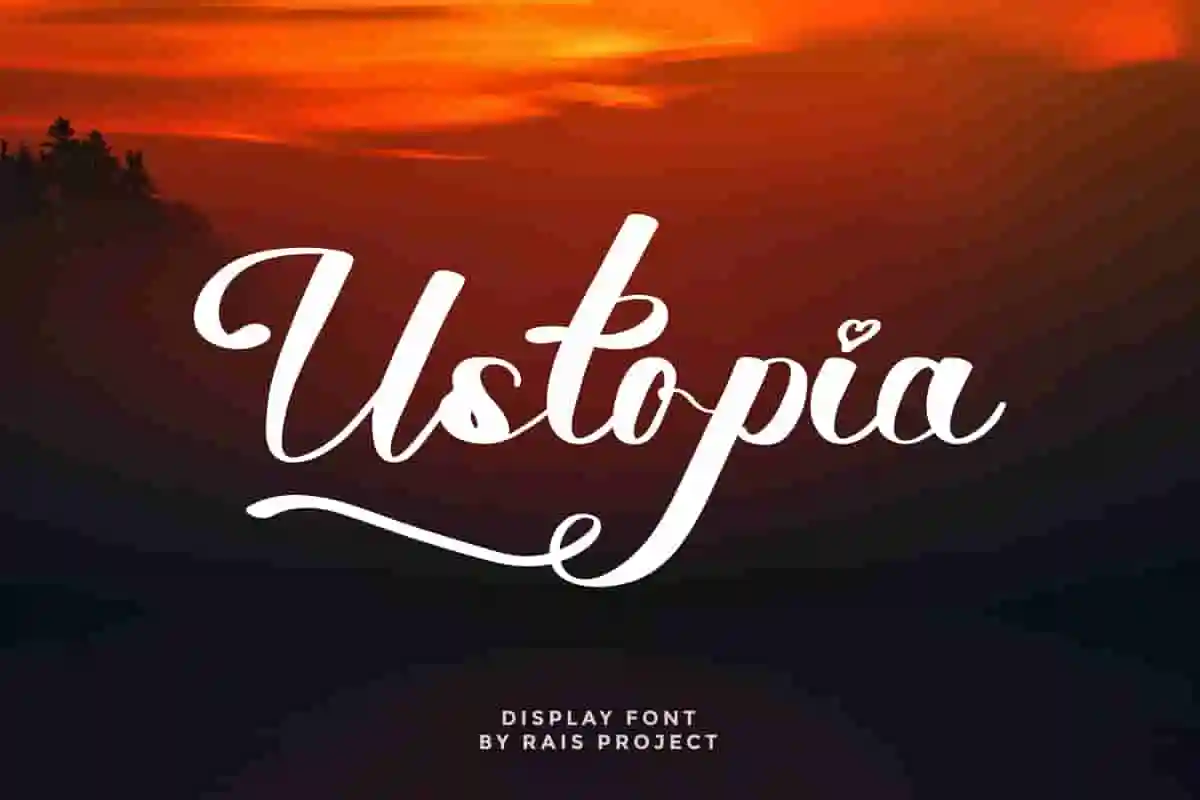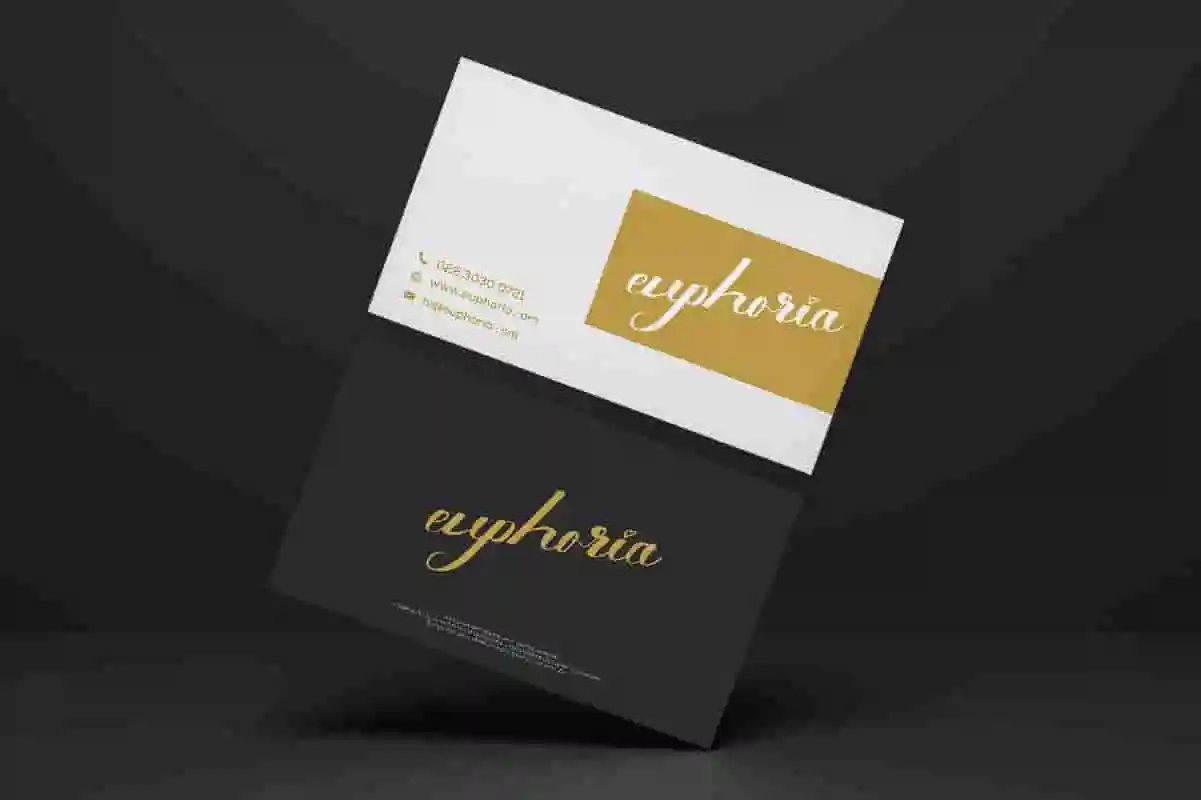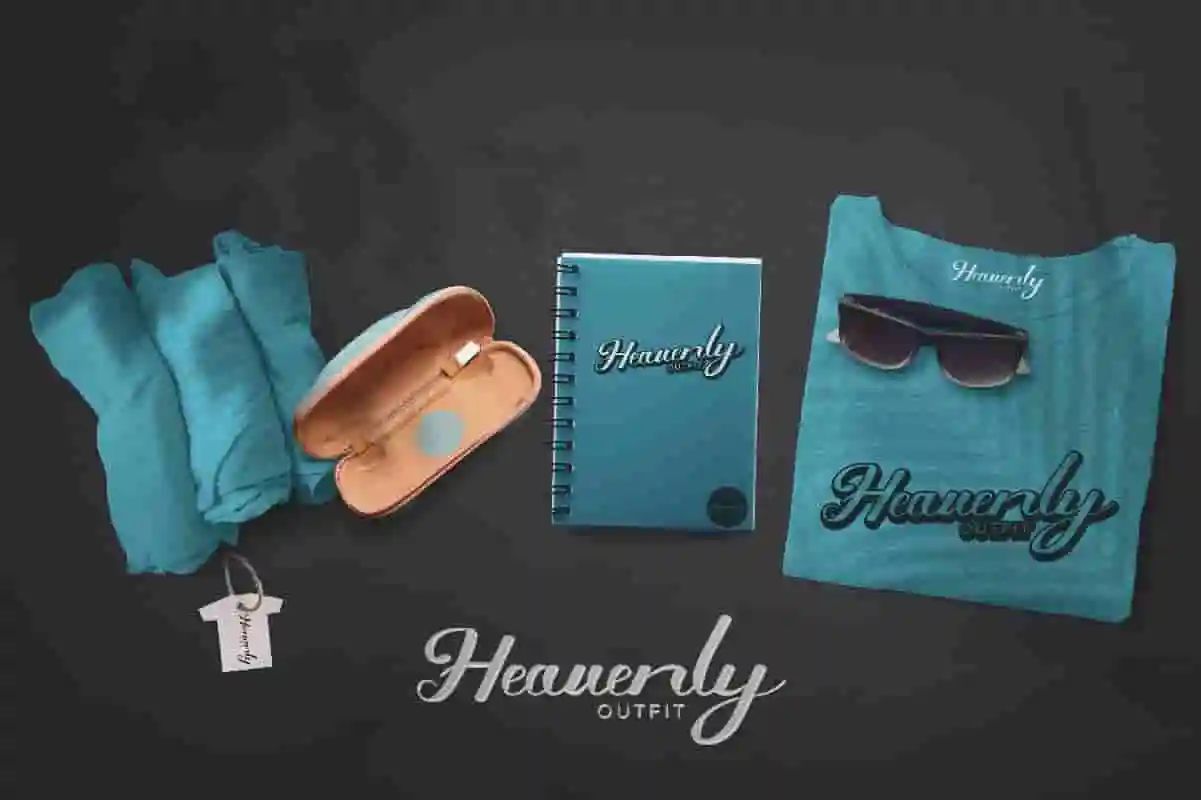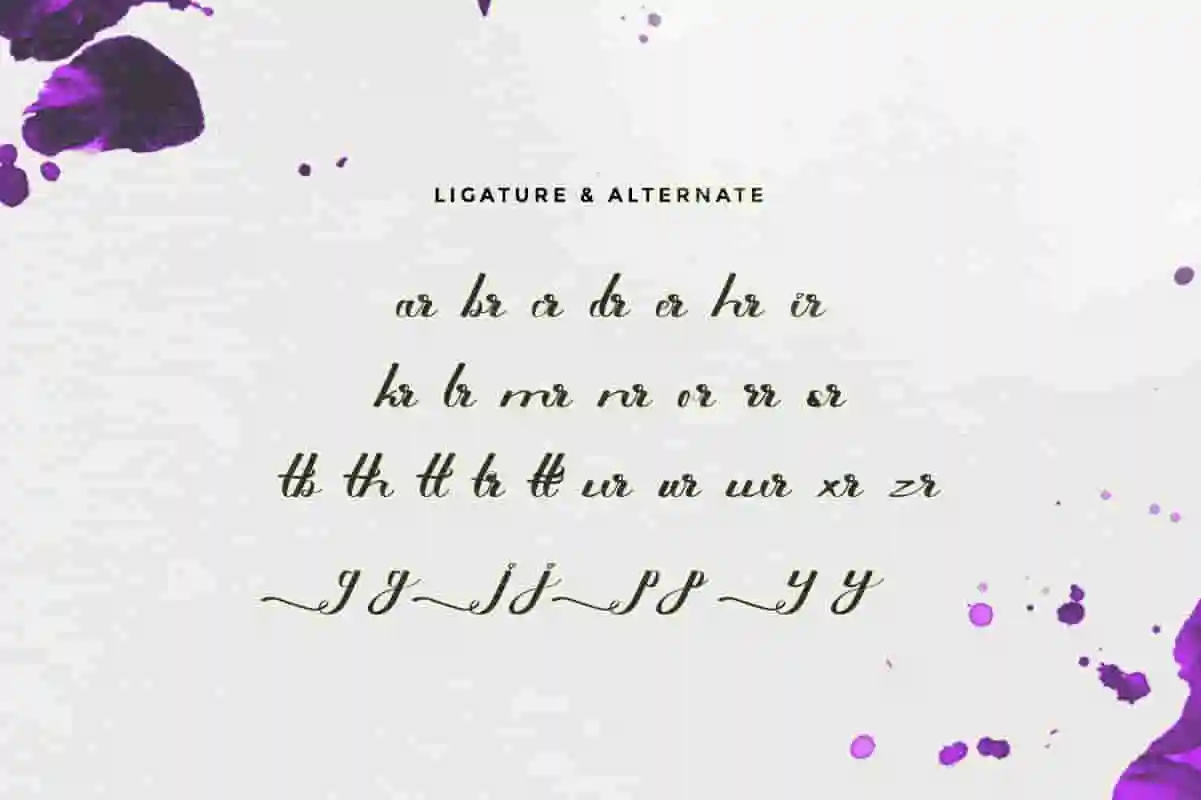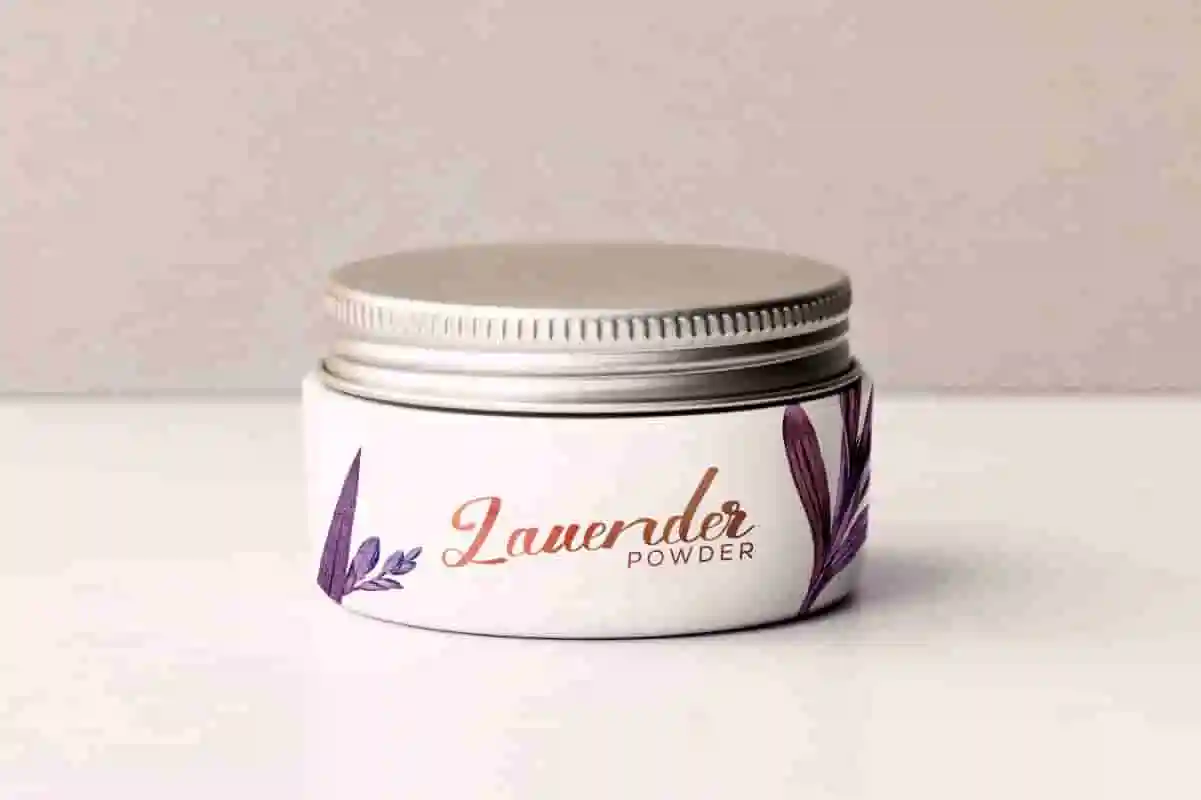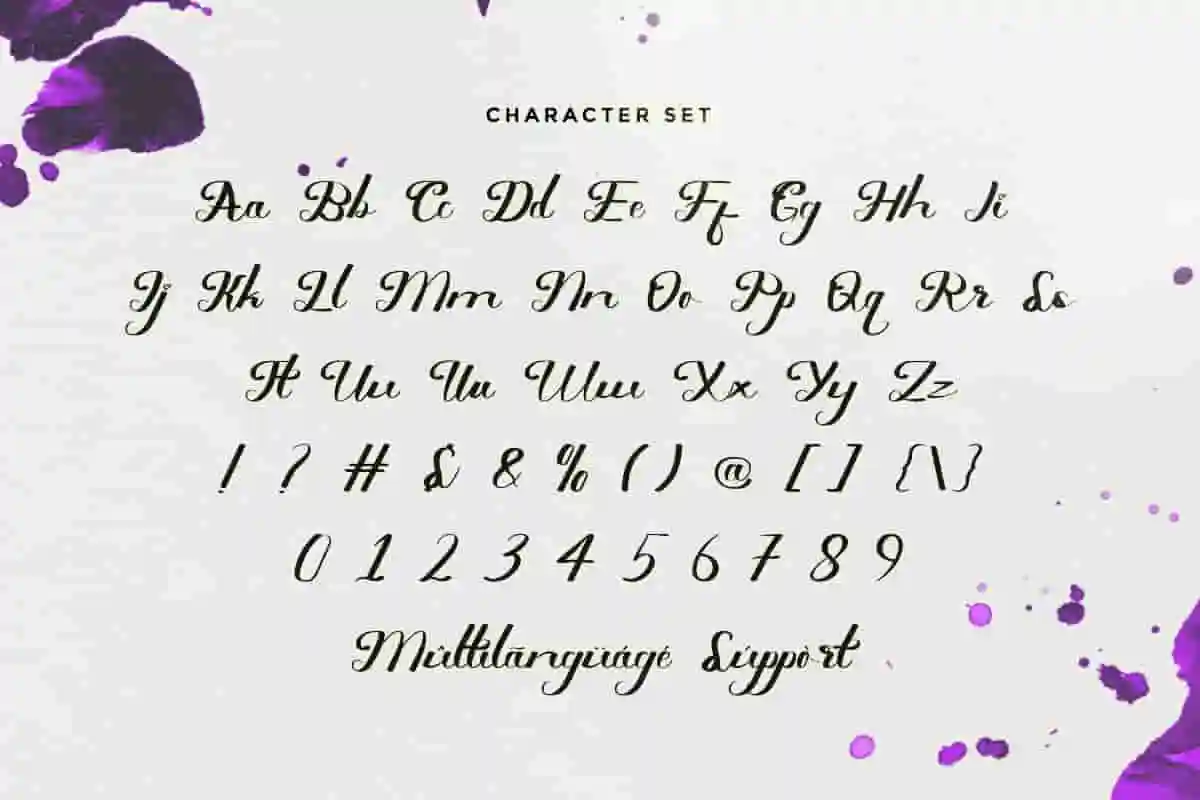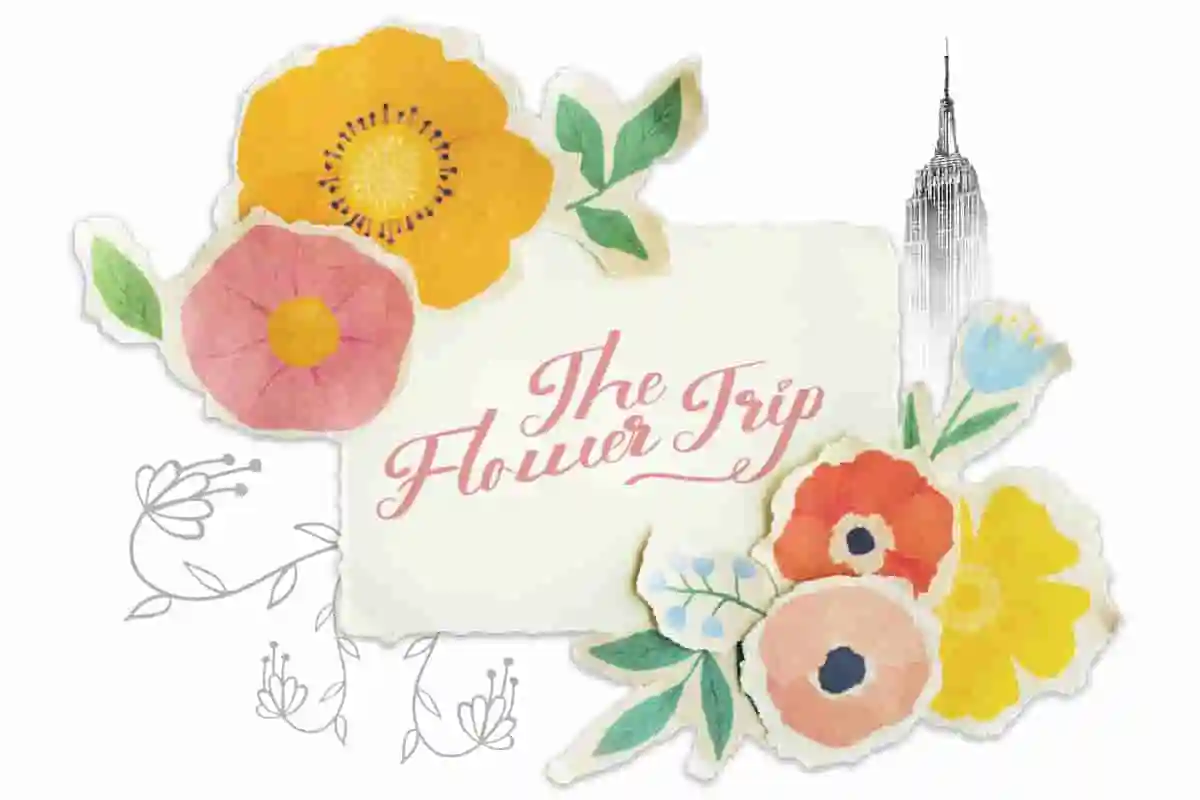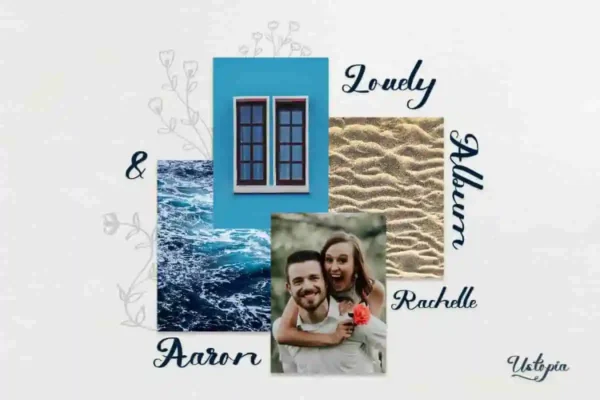
Ustopia calligraphy Font
Ustopia is a unique Calligraphy Font by RaisProject.With exclusive characters,it will be great for any your special projects including : weddings, promotion, events, branding, advertising etc
Ustopia is a Original beautiful script font with calligraphic handwriting style. You can see the demo font below. You can also input any word you want so you can see what it will look like :
Ustopia Font made in Indonesia by RaisProject. it will be stunning for any your special projects including : weddings, promotion, events, branding, advertising, magazine, shopping, signage, invitation, stationery, social media posts, product packaging, product designs, label, photography, watermark or and any projects that need calligraphy handwriting style. Ustopia Calligraphy Font includes full set of gorgeous uppercase and lowercase letters, numerals, a large range of punctuation and ligatures. You will get: